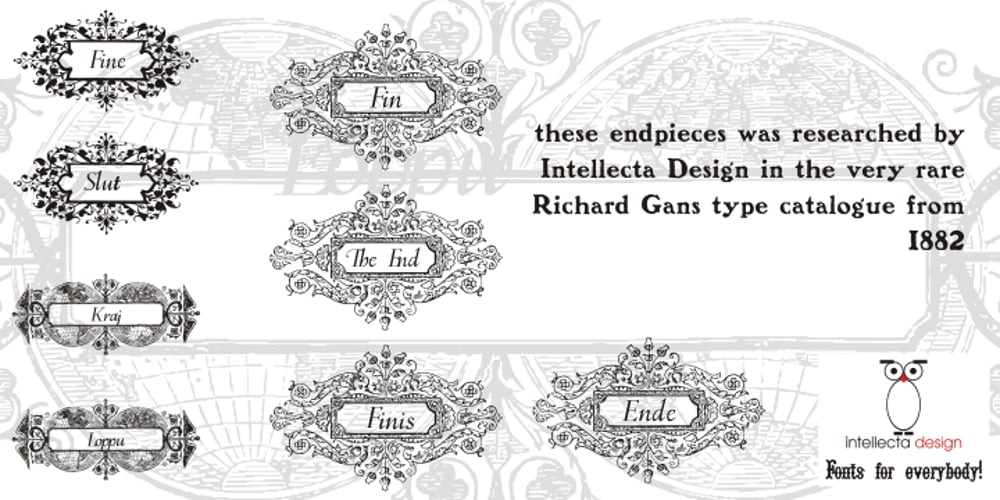
Is This The End Font Family was designed by Paulo W and published by Intellecta Design. Is This The End contains 3 styles and family package options. Is This the End has three different ornamental endpieces ready to use in end chapters, final pages in books, magazines and several artistic representations. Each endpiece may be used in different languages like German, Bulgarian, Croatian, Danish, Spanish, Finnish, French, Dutch, Italian, Norwegian, Polish, English and Portuguese. Intellecta Design researched these endpieces from the very rare Richard Gans type catalogue from 1882.